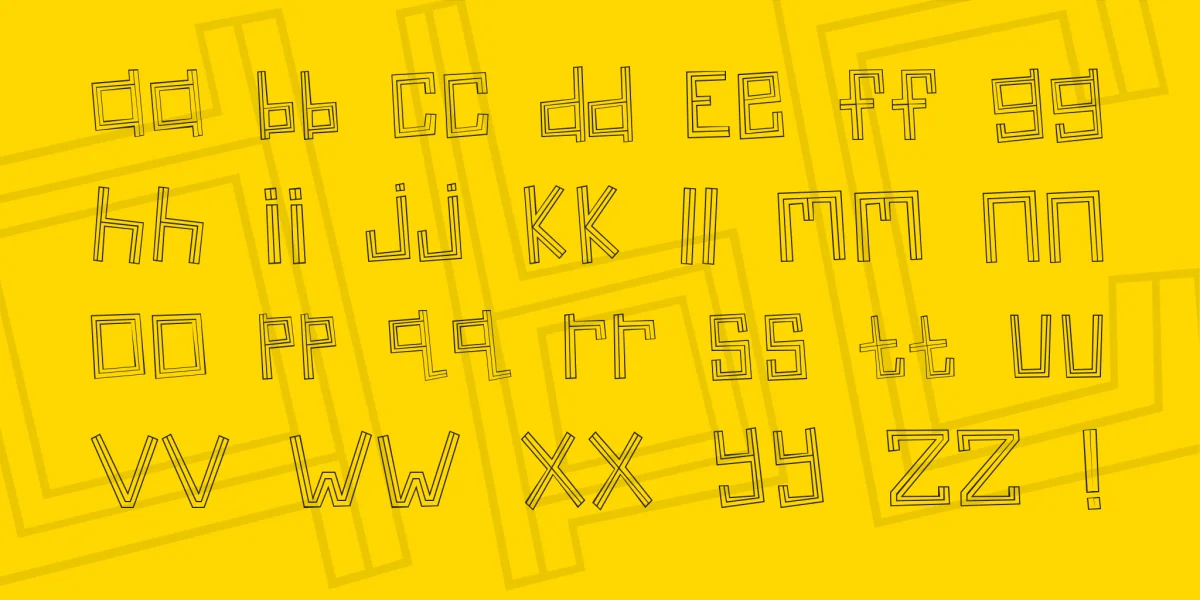
(Caps/Lower [same], some punctuation/special) - to celebrate my 100,000th hit (!) I've tried to bring you some Old School Tom 7 fontage -- this is a face which has appeared in my notebooks sporadically for quite a long time. It's for headlines only, and though I did hand hint it, it does quite a number on low-resolution bitmap displays. It is best suited for 48-point or larger printed headlines. (16 November 1997)